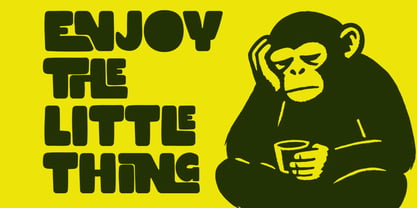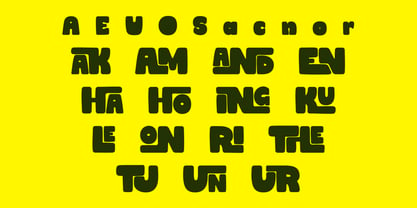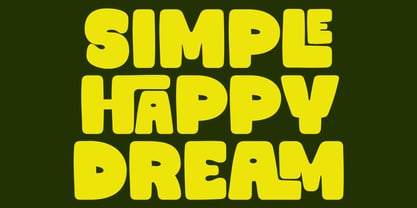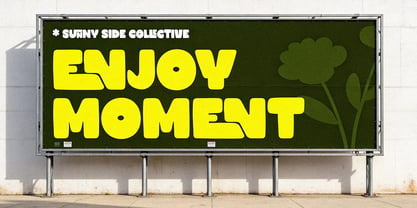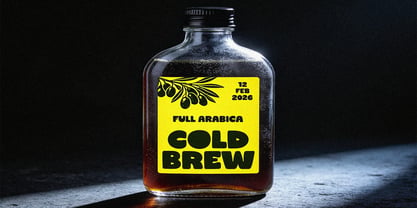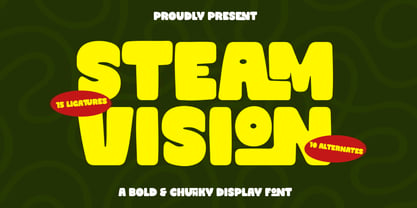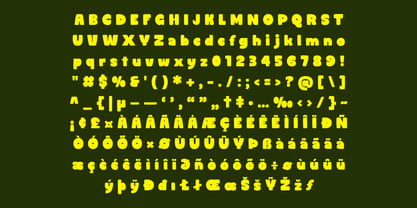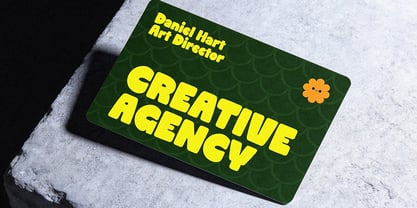
Steam Vision
by Mega Type
The Steam Vision Font Family was designed by M Akmal and published by Mega Type. Steam Vision contains 1 styles. More about this family
This font features very thick, rounded, and chunky characters with a strong playful feel. The letterforms are wide with rounded corners and dense proportions, creating a striking and attention-grabbing appearance. The visual style has a retro-modern feel with a fun and energetic feel, enhanced by the use of ligatures that create unique and aesthetically cohesive letter combinations. This font's legibility is excellent at large sizes, especially for titles or headlines. Its expressive characters make it feel lively and full of personality, perfect for designs that want a bold, playful, and informal look. The available character alternatives also give designers the flexibility to create more dynamic variations. This font is perfect for projects such as event posters, product packaging designs (especially for food or beverages), creative branding, social media content, YouTube video titles, games, and merchandise like stickers. In short, this font is ideal for projects that require strong visual appeal and a fun feel. Have fun using Steam Vision!!! Thank you very much, Megatype.
Designers: M Akmal
Current Foundry: Mega Type